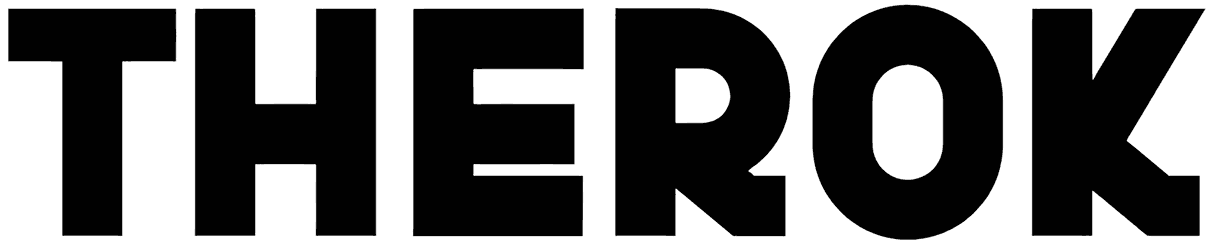
Therok Font
Greetings to the fresh sans serif font that can capture your hearts with its modern and friendly layouts, to achieve it and amaze others. Here, our website library gives you the possibility of trying the Therok font in designing any magazine, book covers, posters, branding, and even packaging production to share an approachable and reliable sense.
Although it doesn’t support numbers and punctuation, definitely its different styles will lend a hand to you to be the first-rate in designing.